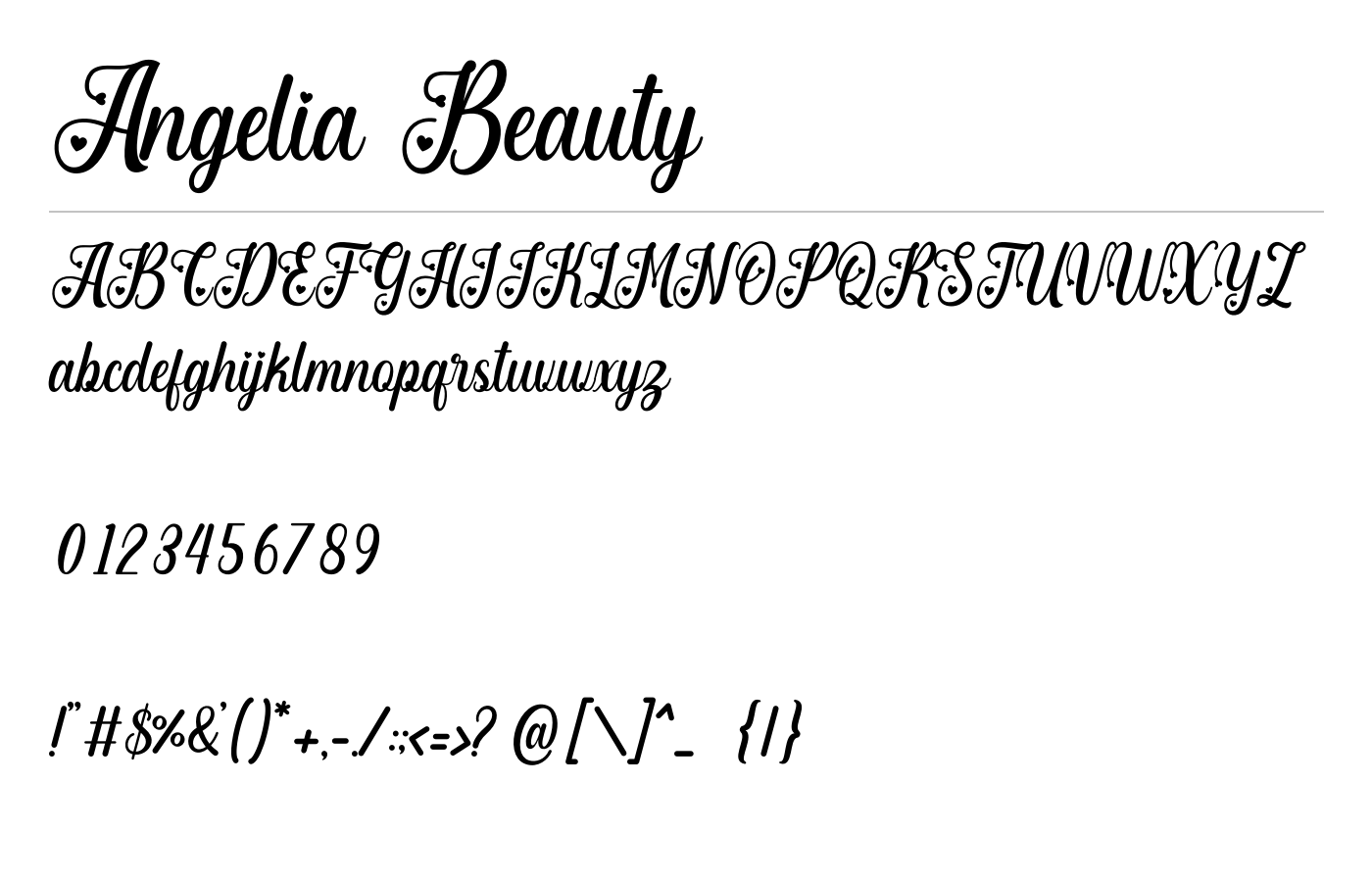
Angelia Beauty is a graceful script font with a flowing, elegant style that features delicate swashes and heart-shaped accents in its uppercase letters, adding a playful yet refined touch. Its smooth, moderately contrasted strokes and slender, upright posture make it ideal for beauty, fashion, and romantic branding, lending a sophisticated and charming personality to logos, invitations, and packaging. This font's legibility and decorative flair also suit elegant headlines and creative editorial uses where a feminine and stylish appearance is desired.
Angelia Beauty Font
About Angelia Beauty Font
| Font family | Angelia Beauty Font |
| Designer | Hamber Perdiansyah |